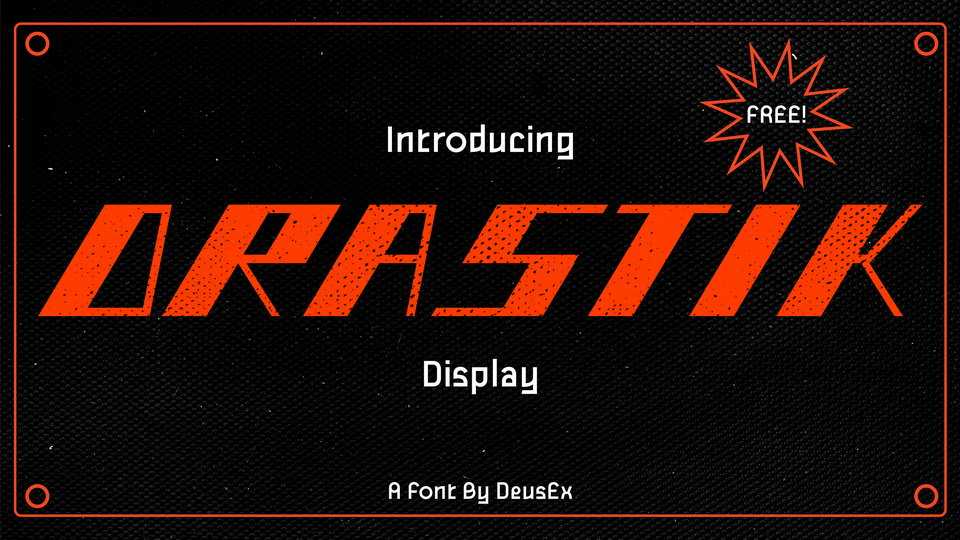
Download Drastik font, a bold new uppercase display typeface, which takes inspiration from modern technology and sports. Drastik is a superb choice for bold titles, sports posters, and branding.
Designer: Pavan Kumar